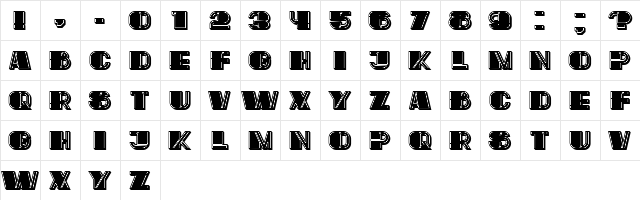
Mafia Regular Free Font
Mafia Regular
Mafia Family
Design Context for Mafia
Mafia is a composed and adaptable typeface that performs quietly and consistently across a wide range of design contexts.